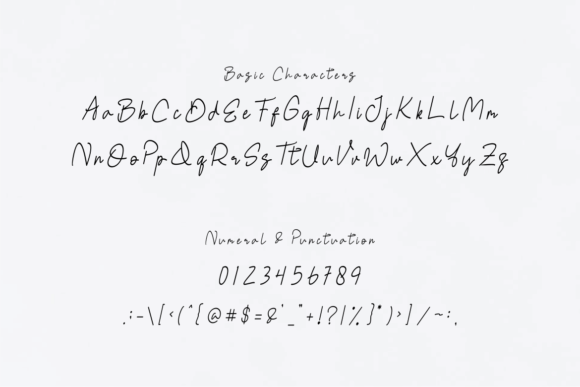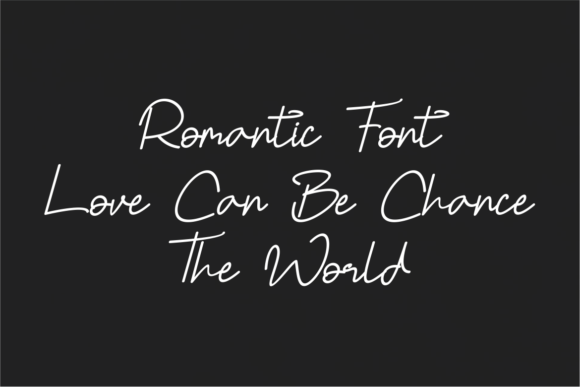
Rotte Stulune Font
About Rotte Stulune Font
Rotte Stulune is a monoline signature font that exudes a stylish handwritten feel, characterized by flowing curves, elegant swashes, lines, and more. This font is crafted with careful attention to detail, resulting in an extraordinary balance in every word. The combination of its monoline structure and stylish handwritten elements makes Rotte Stulune a distinctive and visually appealing typeface.
The monoline aspect of Rotte Stulune means that the thickness of the lines remains consistent throughout, providing a clean and modern aesthetic. This makes the font suitable for various design applications where a sleek and sophisticated appearance is desired.
The stylish handwritten feel of Rotte Stulune adds a touch of personality to the text. The flowing curves and elegant swashes contribute to the overall charm of the font, making it well-suited for projects that require a signature-style or personalized touch.
The balance achieved in every word of Rotte Stulune speaks to the careful design and craftsmanship of the font. This balance ensures that the font maintains its visual appeal and readability across different words and contexts.
Overall, Rotte Stulune is not just a font; it’s a design tool that brings a monoline, signature-style elegance to your creative projects. Whether used for branding, invitations, signatures, or other applications, Rotte Stulune stands out with its stylish handwritten feel and extraordinary balance, adding a touch of sophistication to your designs.